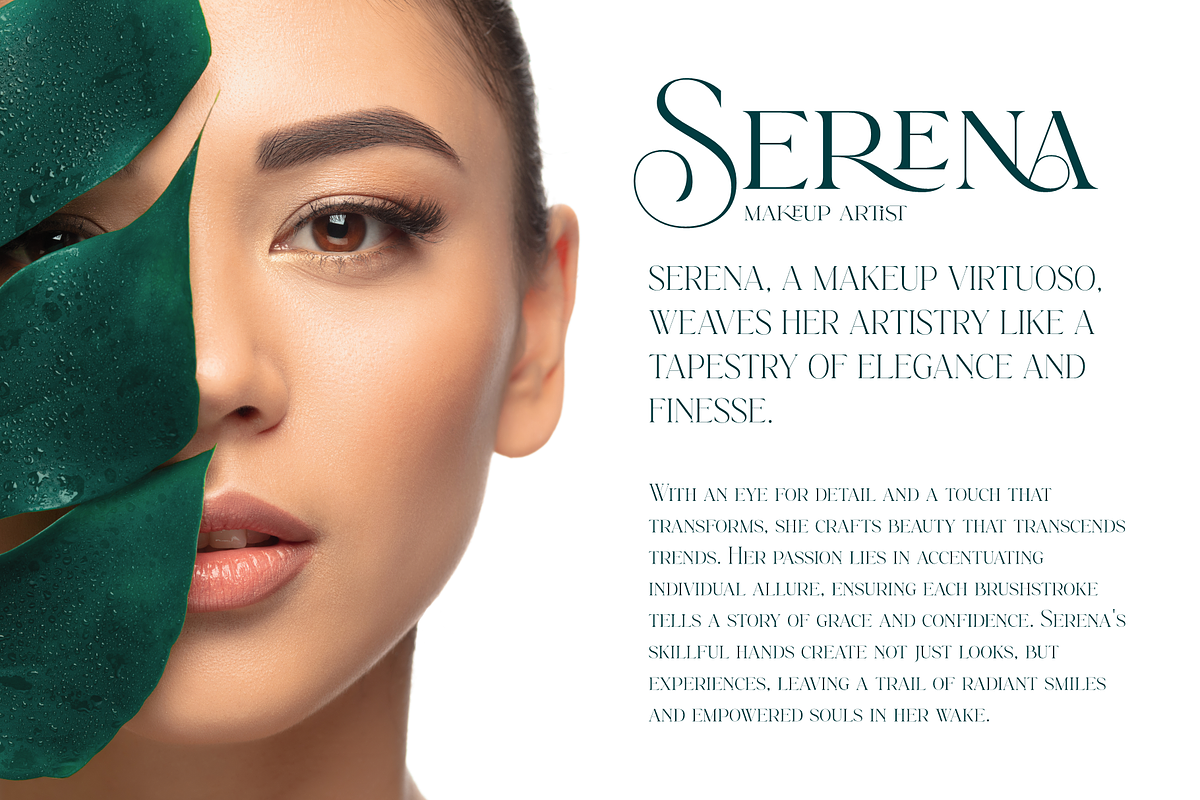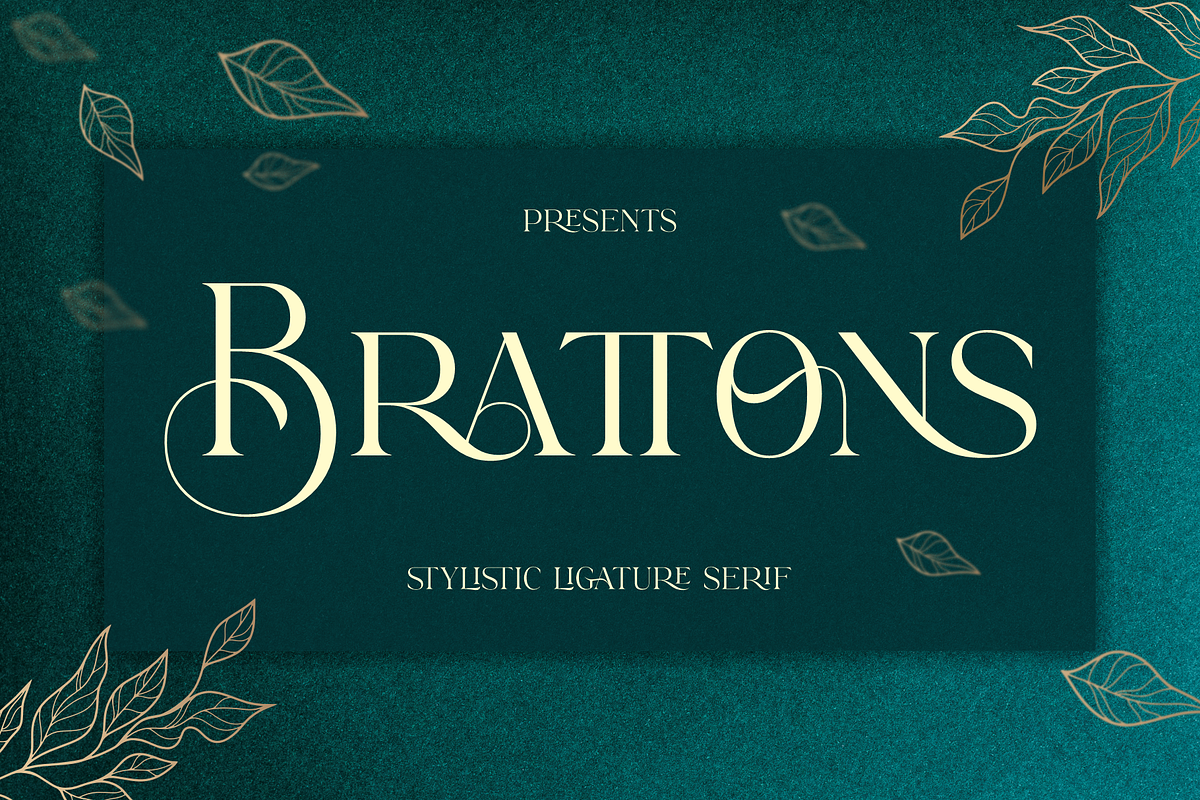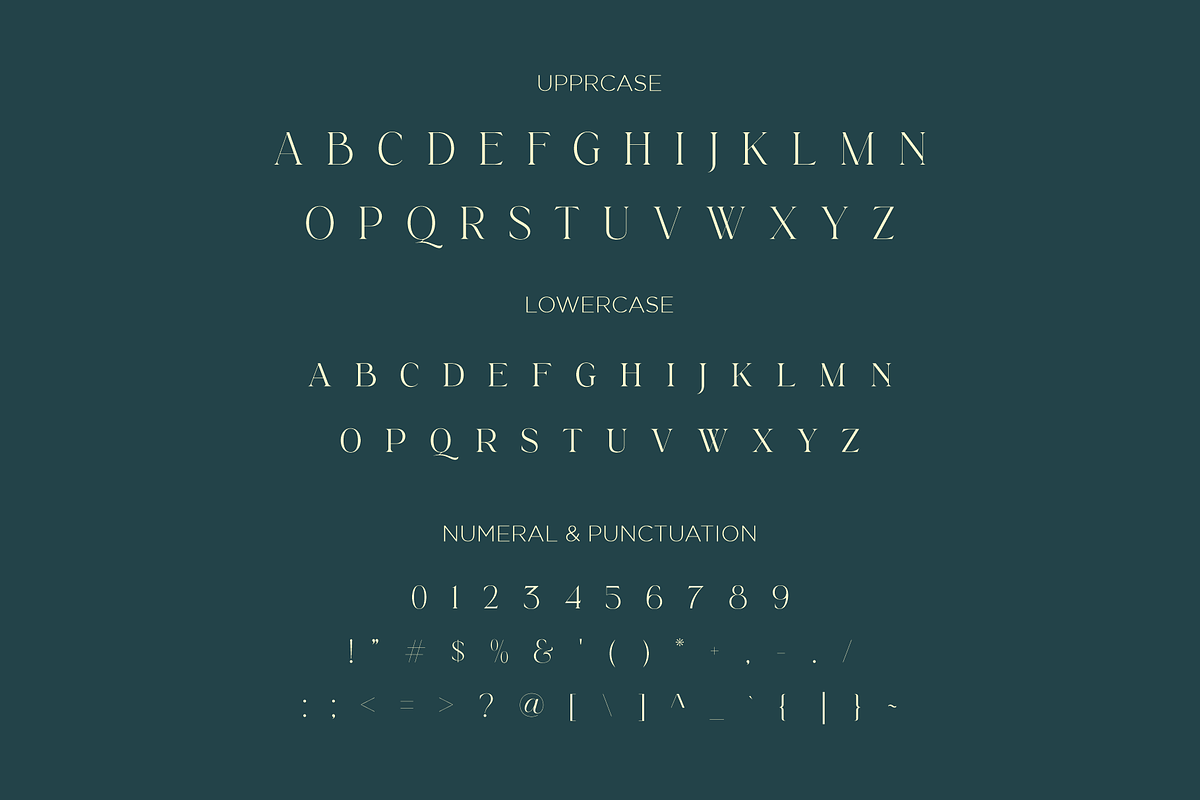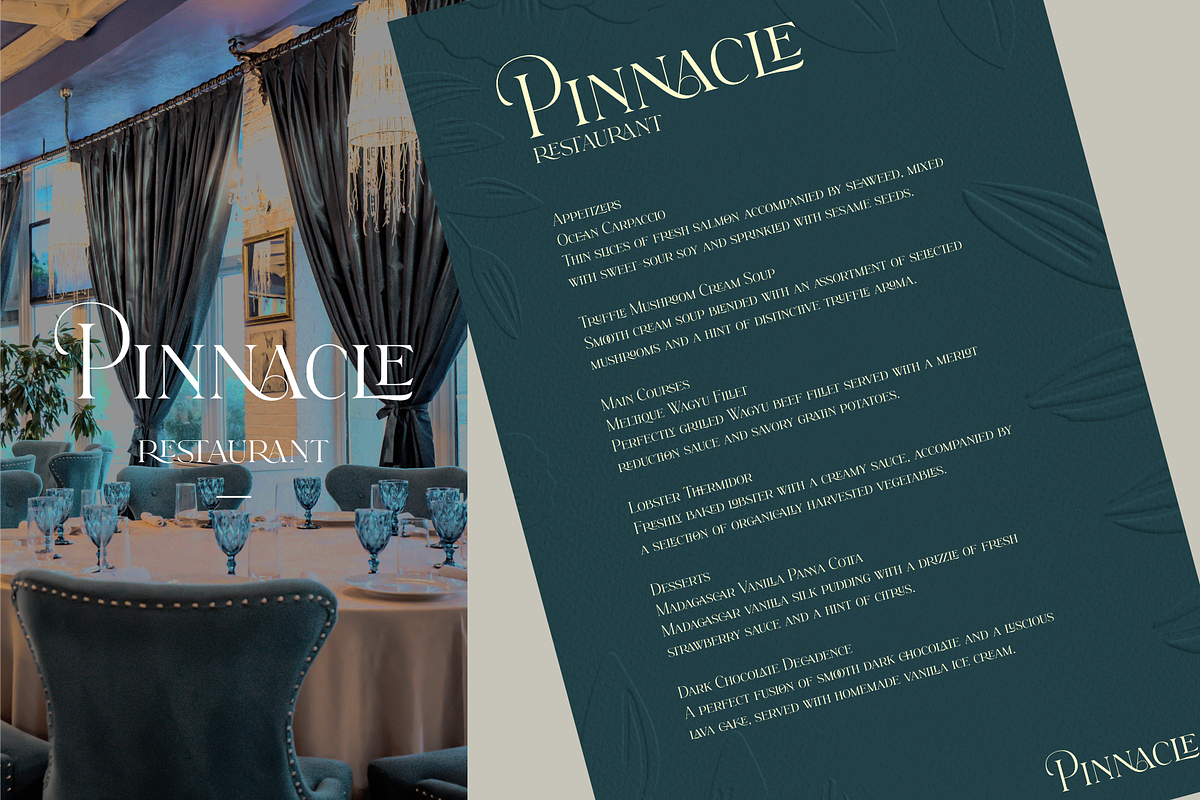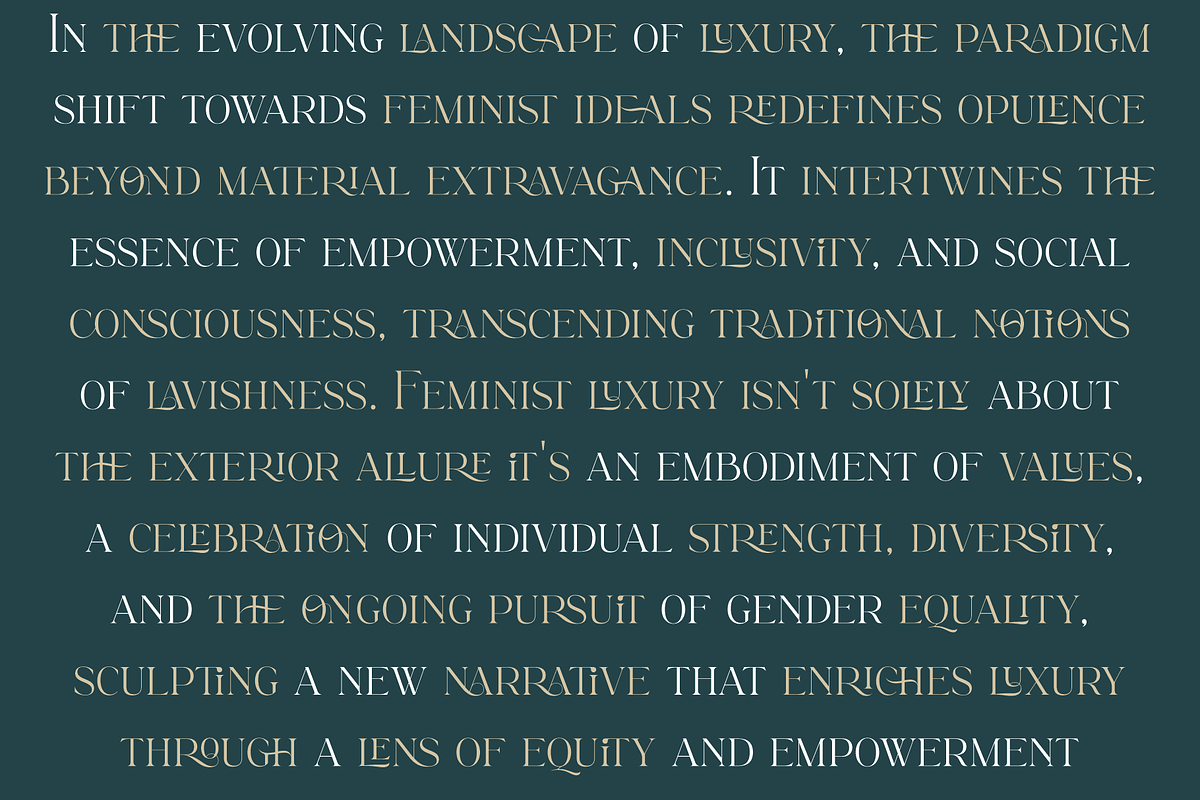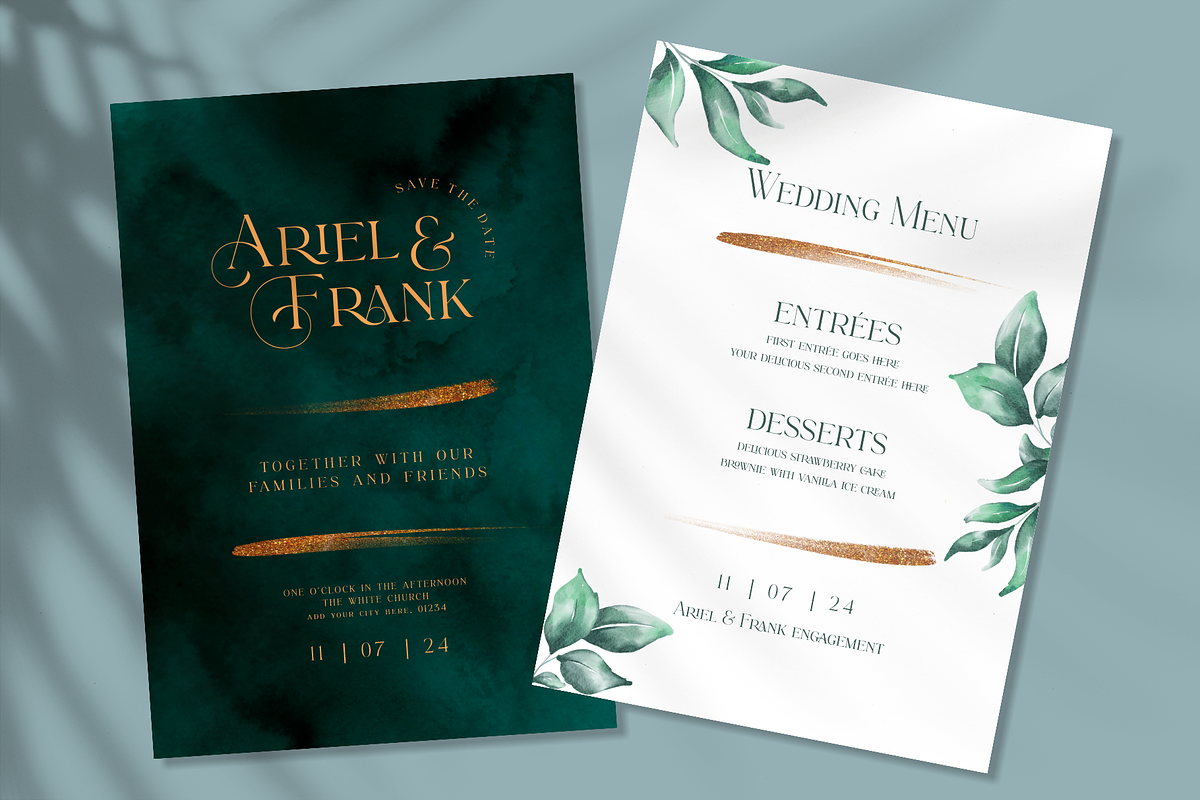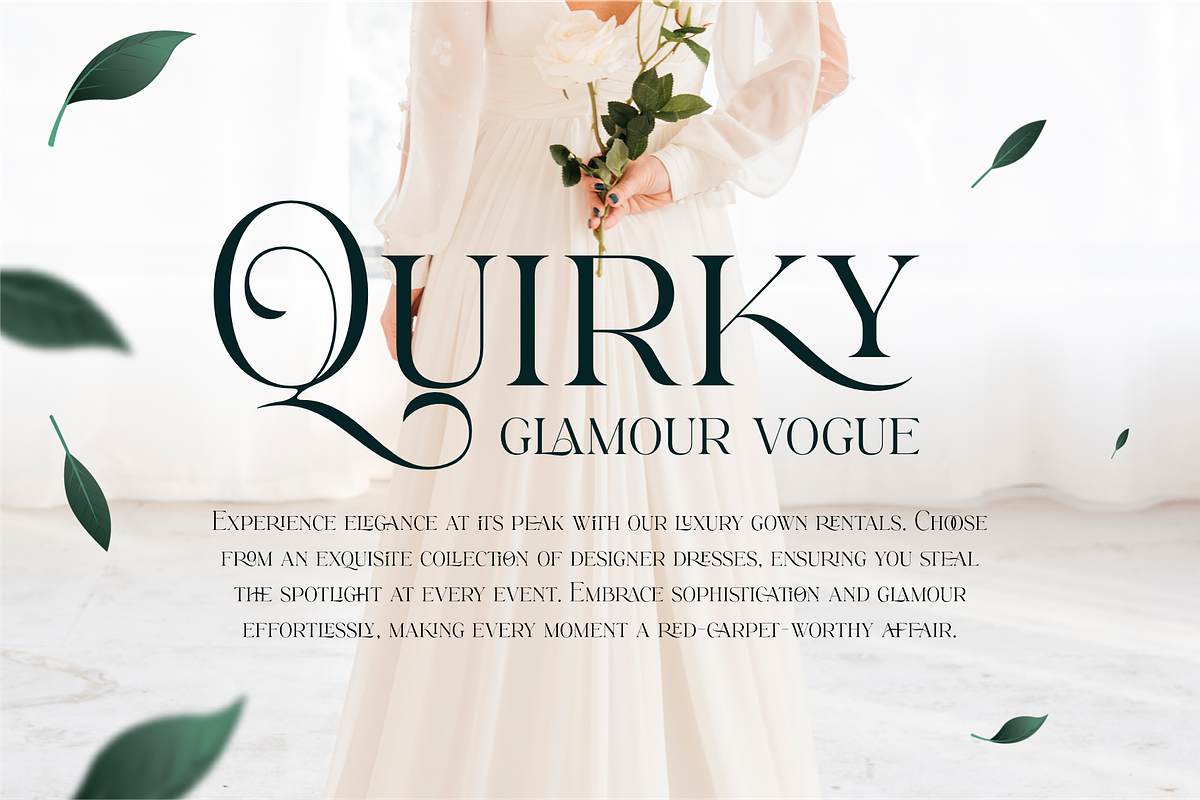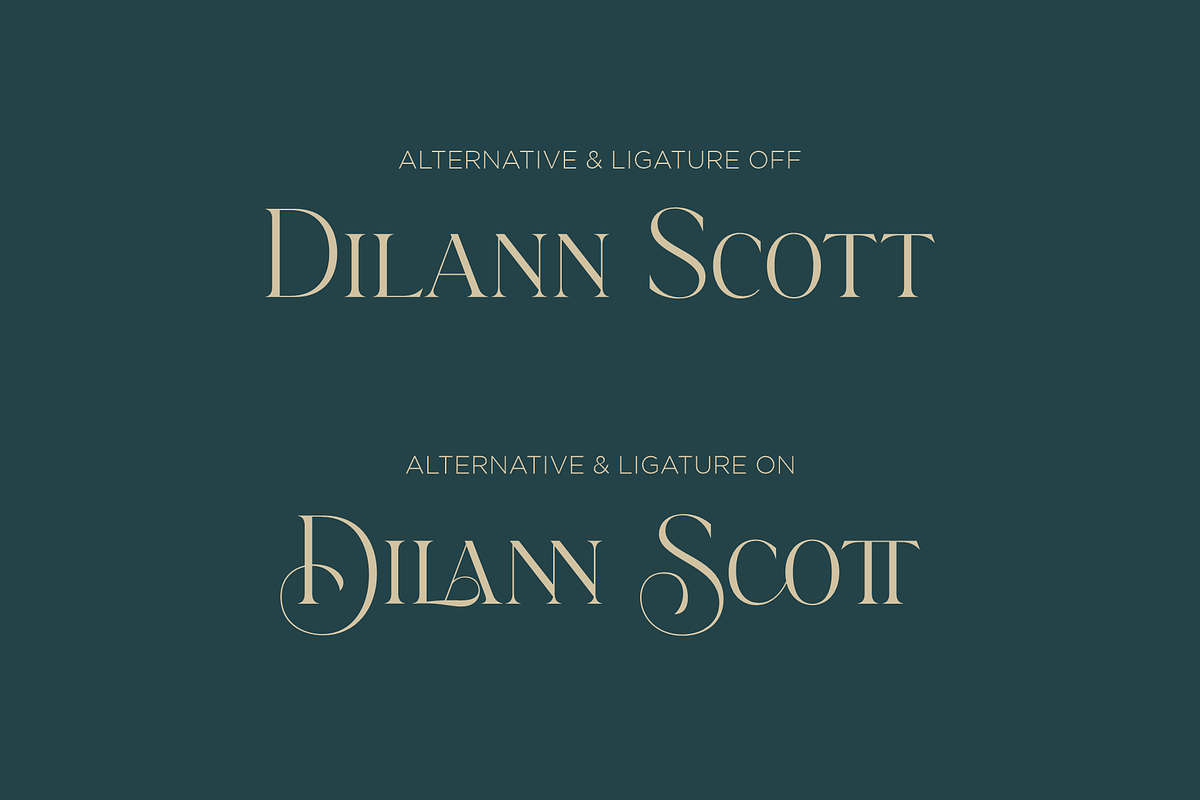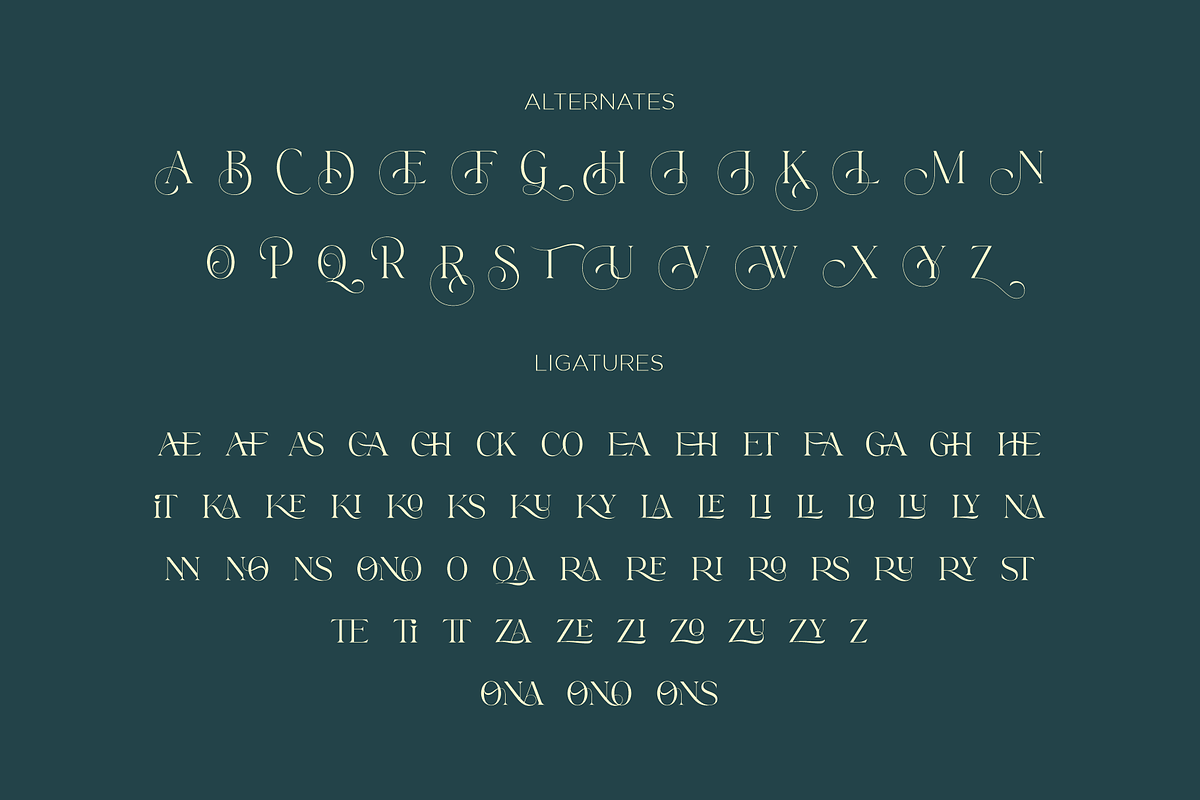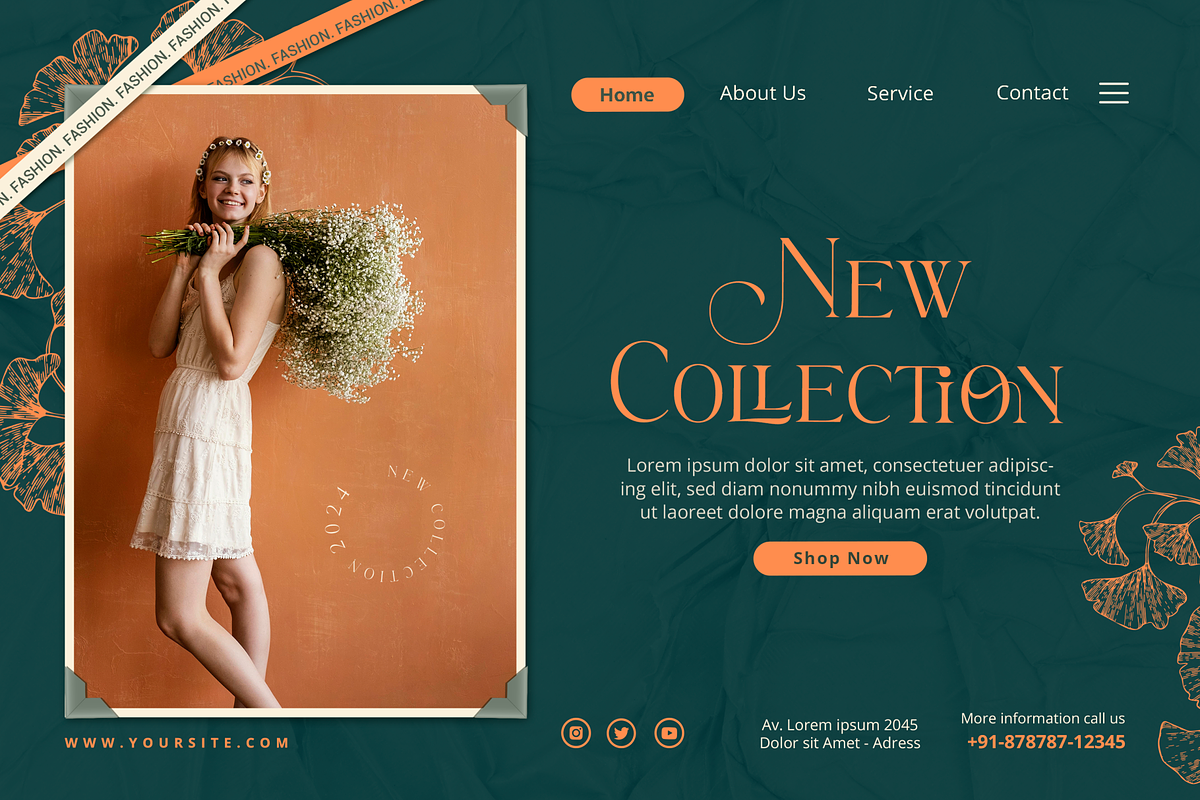
Brattons - Stylistic Ligature Serif
Brattons, a newly crafted font, embodies an essence of elegance and sophistication. Its graceful curves and delicate strokes exude a distinctly feminine allure, capturing the essence of luxury and style. This serif font boasts stylistic alternates and ligatures that elevate its visual appeal, offering a unique and refined touch to any design project. Brattons is a testament to its meticulous craftsmanship, designed to resonate with those seeking a blend of timeless charm and contemporary finesse.